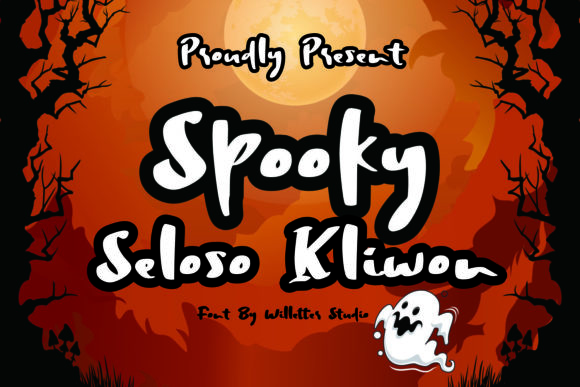
Feast your eyes on Spooky Seloso Kliwon, a spellbinding display font crafted by the talented Willetter Studio. This font is not just a collection of characters; it's a gateway to a world of boundless creativity. With its captivating curves and eerie glyphs, Spooky Seloso Kliwon will cast a spell on your designs, leaving your audience spellbound.
Step into the realm of the supernatural with this font that dances like a ghost on a moonlit night. Its intricate details and captivating charm will make your designs stand out from the ordinary, leaving your audience mesmerized. Whether you're conjuring up a haunting flyer, crafting a spine-chilling invitation, or creating an otherworldly website, Spooky Seloso Kliwon will unleash your imagination and bring your visions to life.
Immerse yourself in the mystical aura of Spooky Seloso Kliwon, where every letter tells a tale of mystery and intrigue. From its mesmerizing opening characters to its haunting closing glyphs, this font will cast a spell on your designs, captivating your audience and leaving them under your enchanting command.